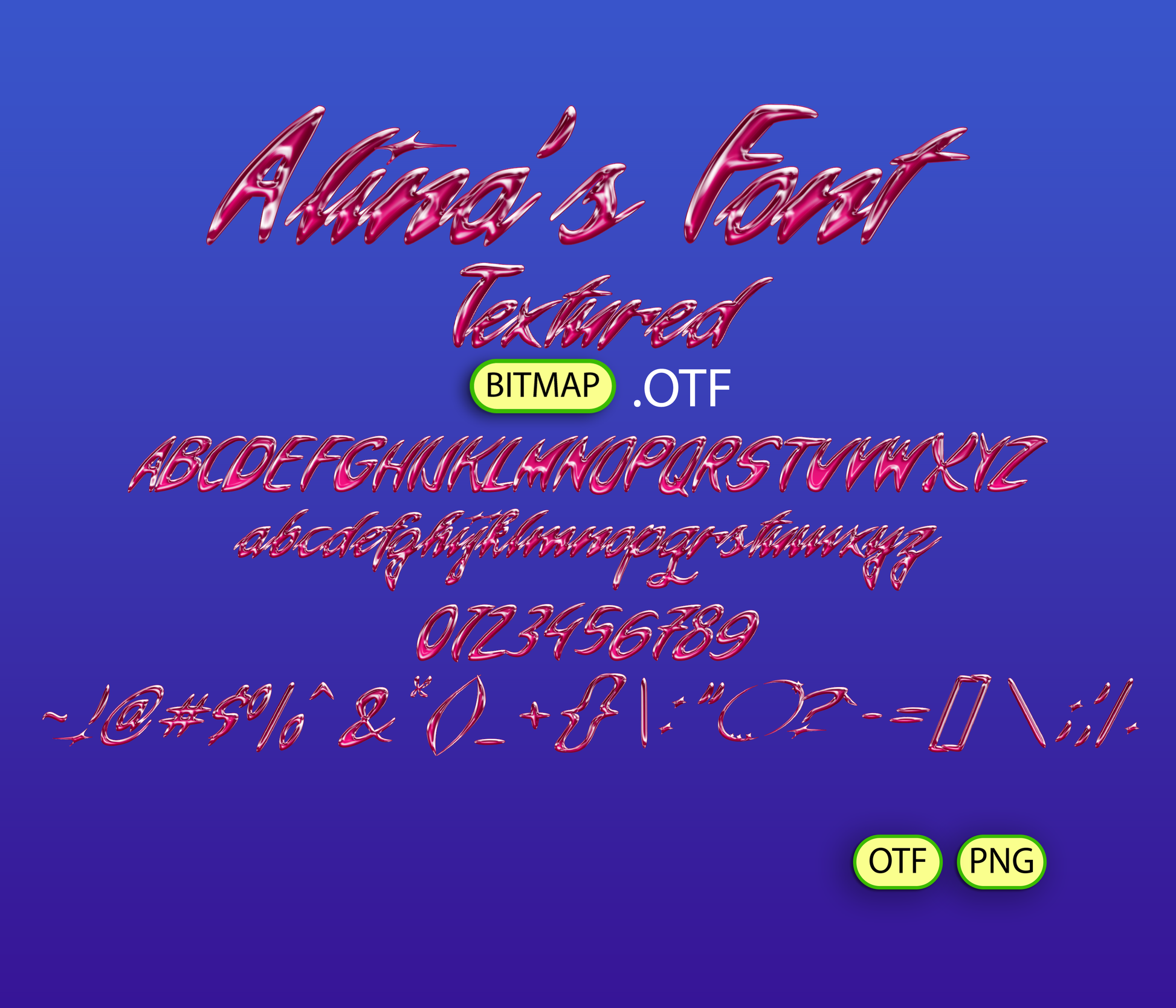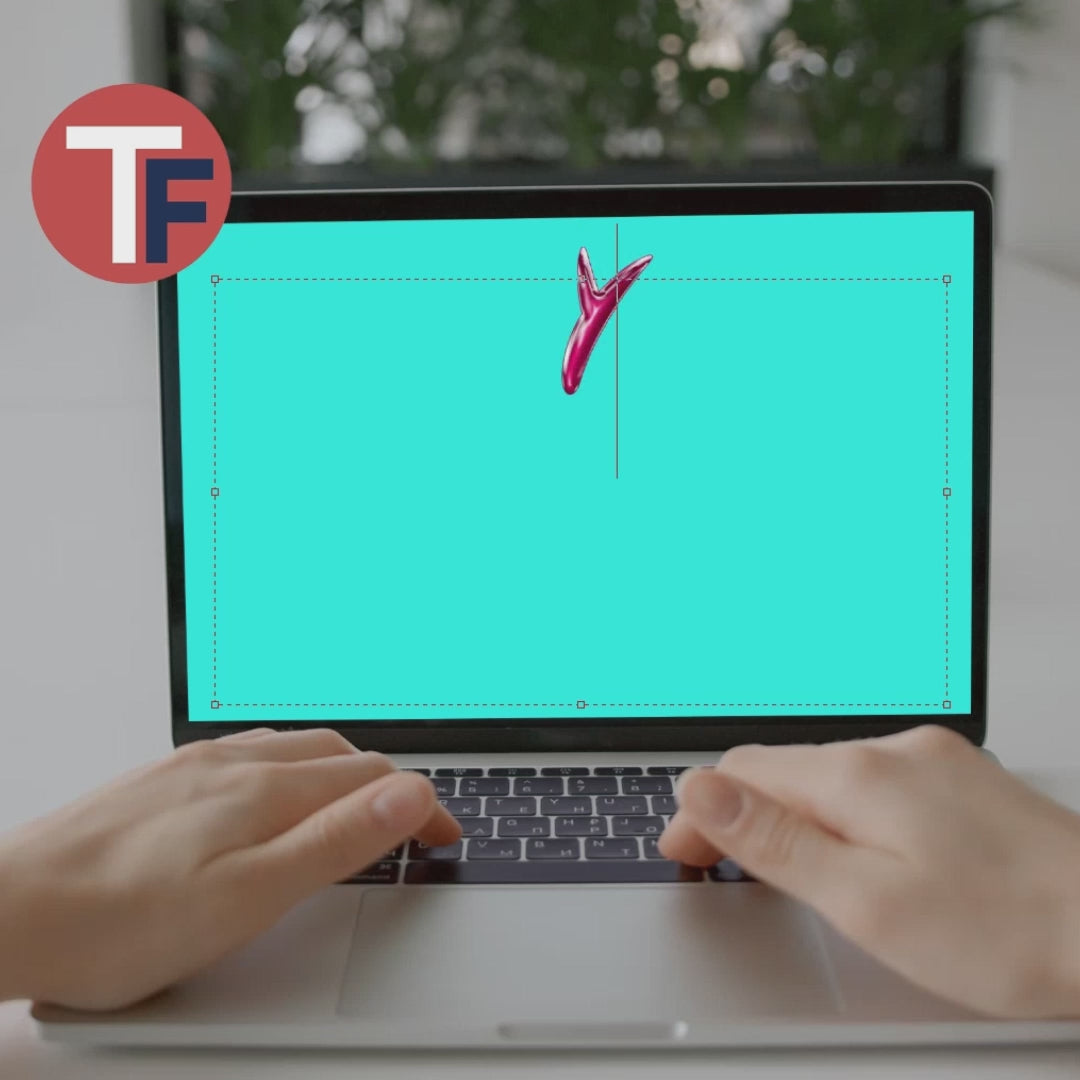
Fairyland Wonders Font Textured
Bring Magic to Your Designs with the Fairyland Wonders Font
Embrace the enchantment and flair of the magical universe with our Fairyland Wonders-inspired font. Perfect for fans of a beloved animated series, this font captures the whimsical and vibrant spirit of the fairies. Whether you’re designing invitations for a themed birthday party, creating content for a fan site, or producing merchandise that celebrates the series, this font ensures your projects sparkle with charm and magic.
Our Fairyland Wonders font features playful, curvy lines and dynamic forms that reflect the energetic and magical nature of the show. It’s designed to evoke the mystical and feminine style of the fairies, making it ideal for a wide range of creative projects:
Captivate and Charm with Every Design
Our Fairyland Wonders font not only pays homage to the series but also inspires you to incorporate a bit of fairy magic into every design. With its whimsical style and broad applicability, this font allows you to convey messages with the joy and fantasy that define Fairyland Wonders. Ready to transform your creative projects with a touch of magic? This font is here to help you enchant your audience and bring your fantastical ideas to life.